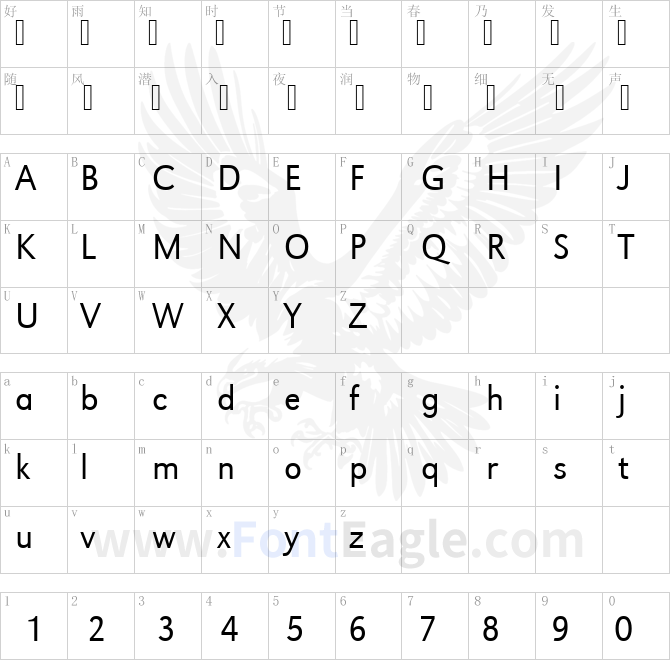
URWGroteskTLigNar is a great font, widely used in graphic design, single-page menu design, poster design and other fields, and is deeply loved by designers.URWGroteskTLigNar download.